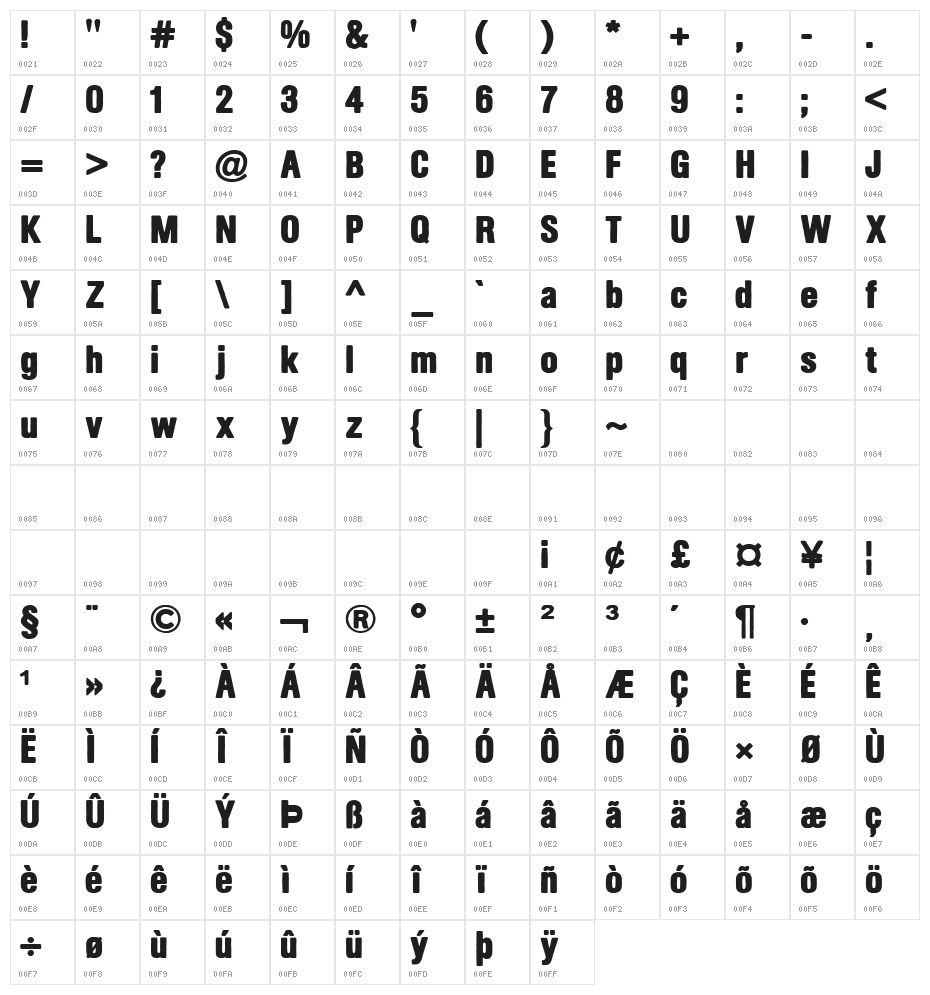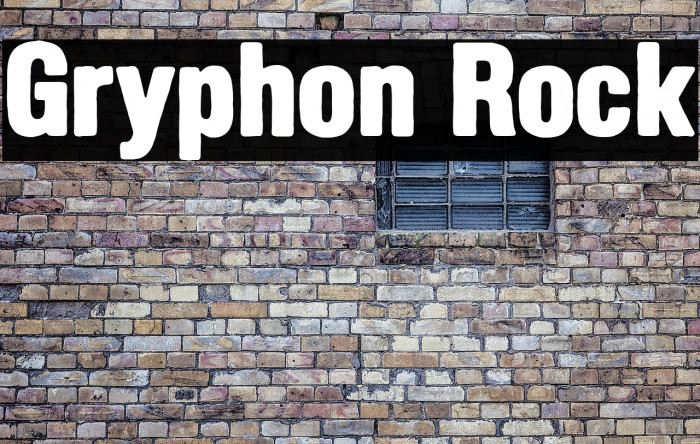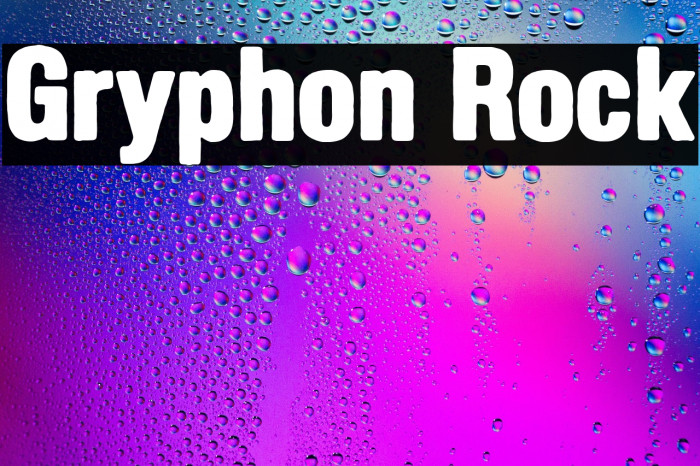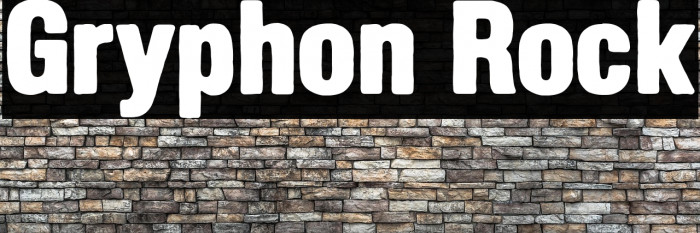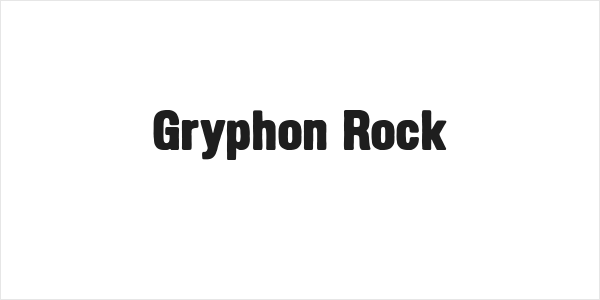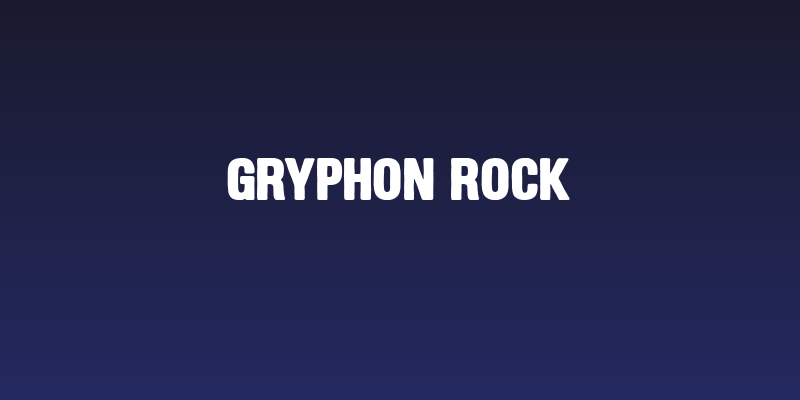
Gryphon Rock Font
Gryphon Rock Description
This font features bold, thick strokes with a strong presence, making it ideal for attention-grabbing designs. The characters are uniformly wide, giving a sense of stability and strength. The uppercase letters are particularly robust, while the lowercase letters maintain a consistent weight, ensuring readability. The numerals are clear and distinct, matching the boldness of the alphabet. Special characters are included, maintaining the same heavy style, which adds versatility for various design needs. Overall, this font exudes a powerful and assertive style, suitable for impactful visual communication.
| Proposed Projects | Ideal for posters, headlines, branding, and any project requiring a bold statement. |